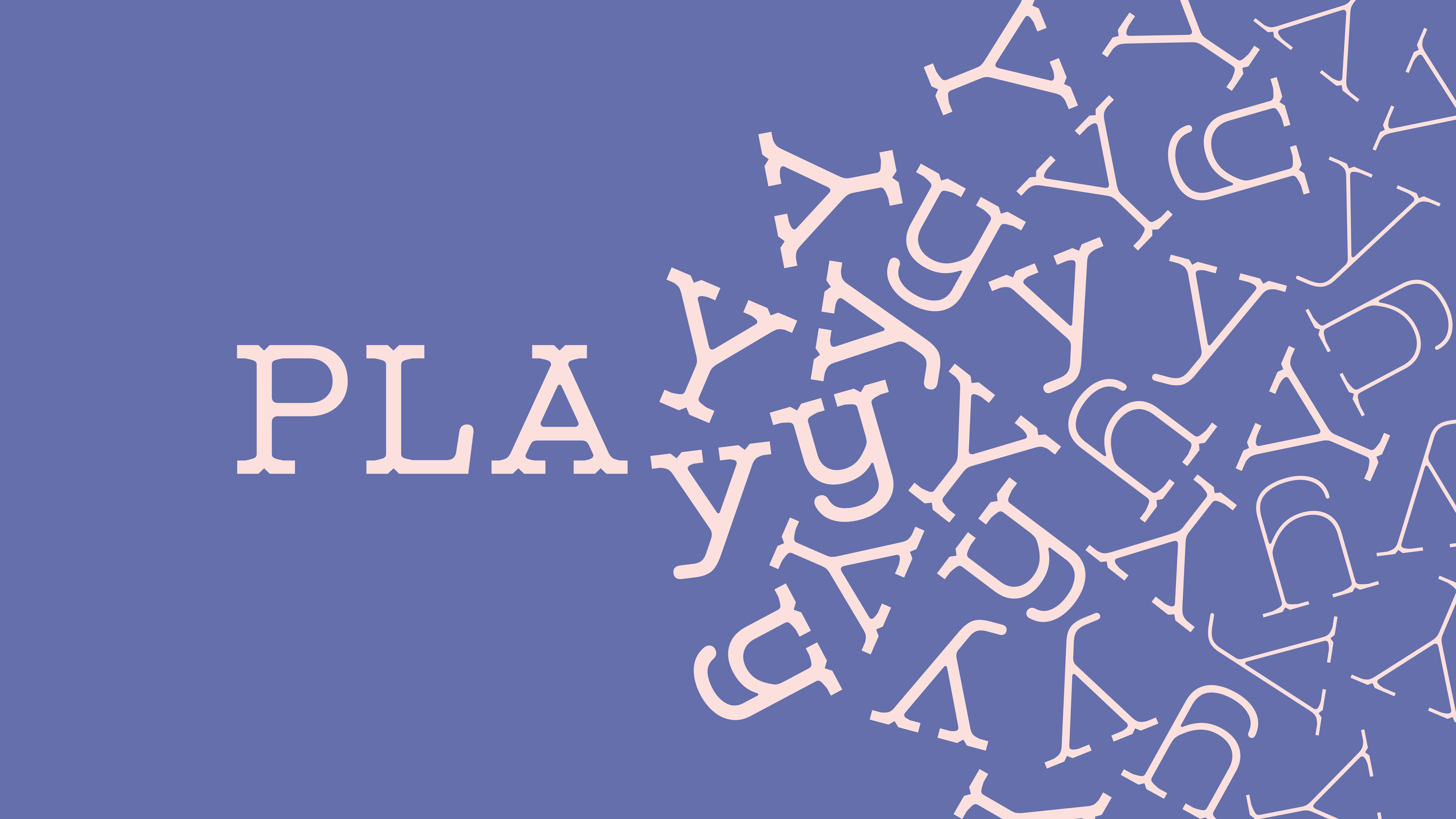
F37 Flick
Known for experimental and typographic excellence, Spin has developed three fonts for F37×.
F37 Flick is the most typographically conservative of Spin’s three releases. However, that doesn't mean its a prude. Taking cues from well established type genres like slab and bifurcated serifs, F37 Flick further incorporates rounded features and unique letter forms to make the font feel contemporary. In particular the interplay between soft and hard elements give F37 Flick a unique presence. It is available in 4 weights, from a delicate Thin to a robust Regular. Also included in the font are many alternate characters that are either more and less conventional forms.
F37® × Spin
F37 Flick
The Designer
SPIN is the creative output of a London-based studio which has been rotating between the poles of art and design since 1992.
This revolution has so far been televised, animated, printed, photographed, pixelated and painted, but rather than offer singular or static solutions, their vision is for an ongoing dialogue between a conceptual practice and its many applications in the real world. In both the virtual and physical realms, SPIN push and play with such boundaries when making work for the halls of commerce and retail, or for the walls of exhibitions. Always innovative and responsive, but constantly enquiring, SPIN create organic visual languages, lending design impetus to their art projects, while removing the type from typography and giving it a new face.